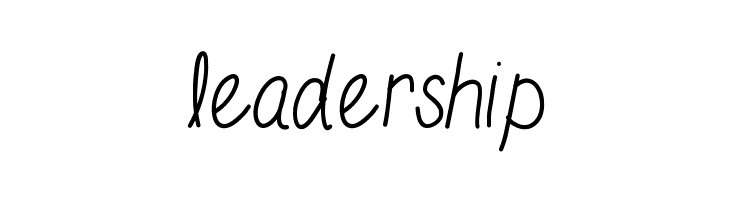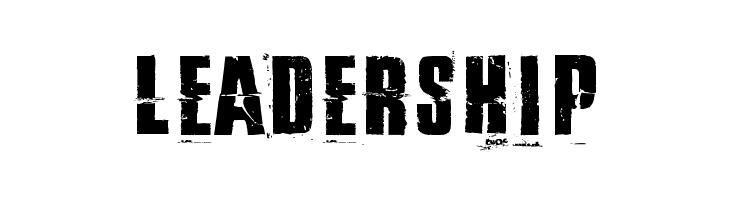
A playful, bold handwritten font with a casual and lively style.
A playful, hand-drawn font with bold outlines and a 3D effect.
A playful, 3D italic font with a hand-drawn style and bold outlines.
A bold, italic handwritten font with a playful and dynamic style.
A playful, casual handwritten font with uneven strokes and a friendly vibe.
A playful, light italic handwritten font with fluid strokes.
A bold, playful font with a three-dimensional shadow effect.
A bold, decorative font with an outline effect and hand-drawn style.
A bold, geometric font with a modern and structured design.
A playful, hand-drawn font with bold, wavy outlines and a cartoonish style.
A playful, informal handwritten font with smooth, rounded edges.
A playful, star-patterned decorative font with bold, rounded characters.
A bold, distressed font with a rugged, industrial style.
A bold, italic font with a dynamic and energetic style.
A bold, impactful font with thick strokes and a modern vintage flair.
A bold, geometric font with blocky, angular characters for modern designs.
A bold, dynamic italic font with sharp angles and strong presence.
A bold, 3D geometric font with a futuristic and industrial style.
A bold, geometric font with a double-line effect, perfect for standout designs.
A bold, angular, and italicized font with a modern and dynamic style.
A bold, geometric font with an industrial and modern style.
A fluid and expressive handwritten cursive font.
A dot matrix font with a digital, retro aesthetic.
A bold, striped font with a modern, tech-inspired aesthetic.
A playful handwritten font with fluid, dynamic letterforms.
Casual handwritten script font.
A bold, hollow, and decorative font with a modern, three-dimensional style.
A bold, three-dimensional font with a modern, industrial style.
Outlined floral icon font with uniform flower shapes.
A bold, distressed font with a grunge texture, perfect for urban designs.
A bold, distressed font with a grunge texture, perfect for urban and edgy designs.
A sleek, modern font with rounded edges and a minimalist aesthetic.
A modern, geometric font with clean lines and a uniform appearance.
A bold serif font with dramatic strokes and sharp serifs.
A bold, dynamic font with a medieval flair and artistic curves.